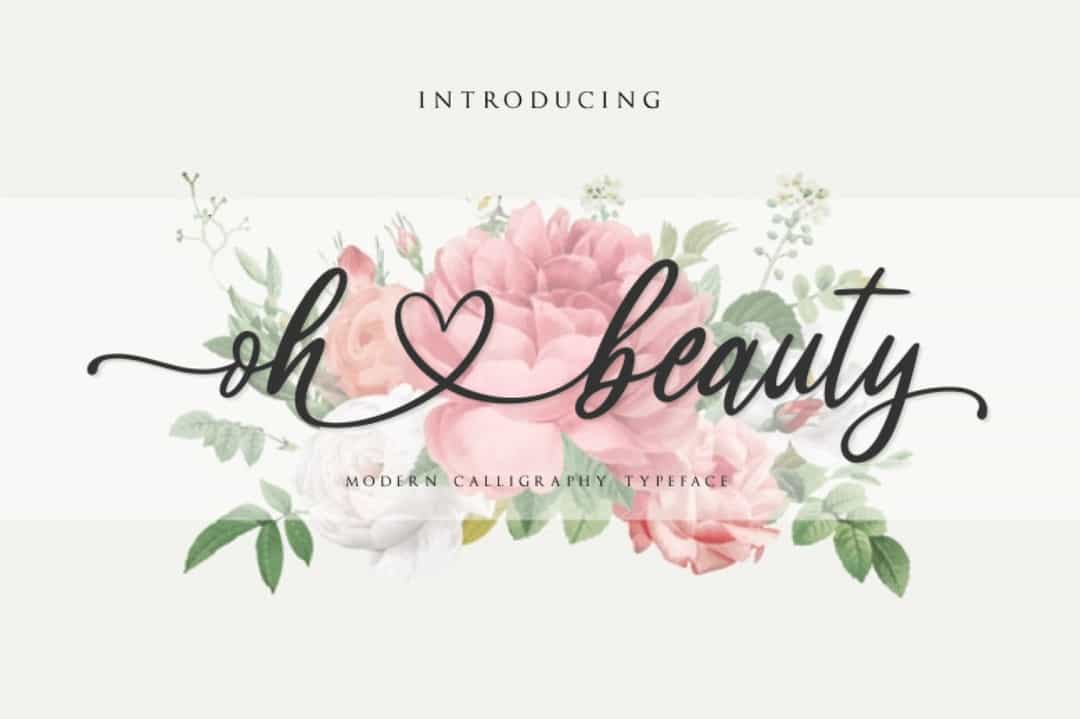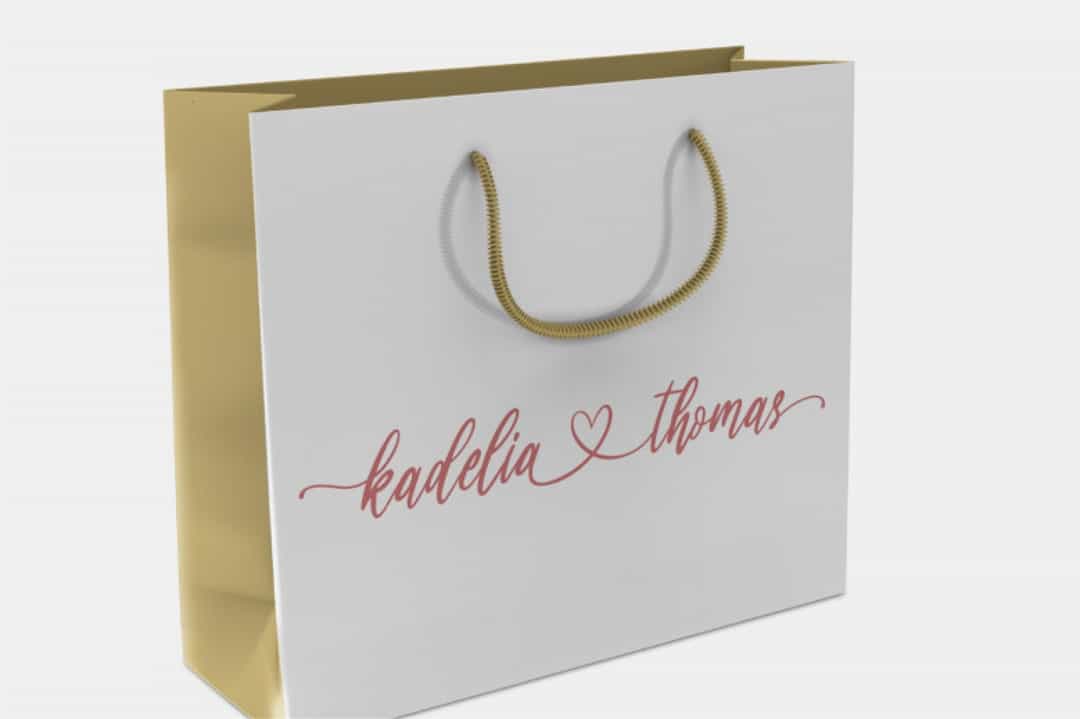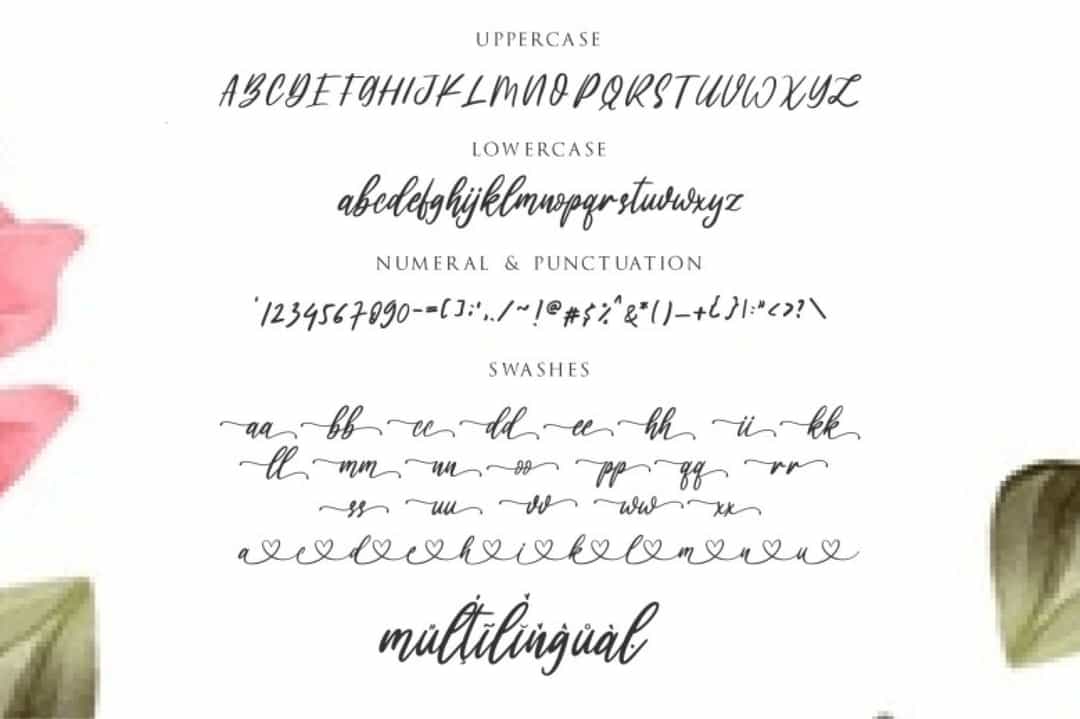
Oh Beauty is an exquisite calligraphy font, elegant and flowing in style. PUA encoded, it can access all characters and washes seamlessly! Boasting different baselines with smooth lines, stunning alternative glyphs, and stunning.